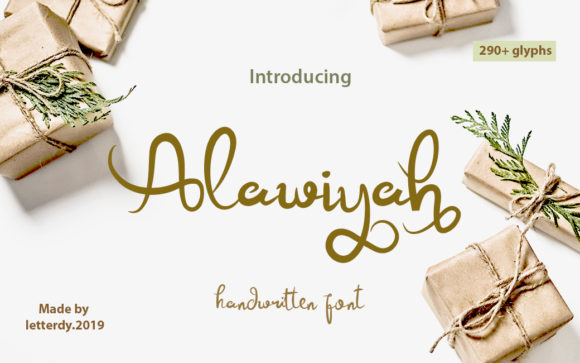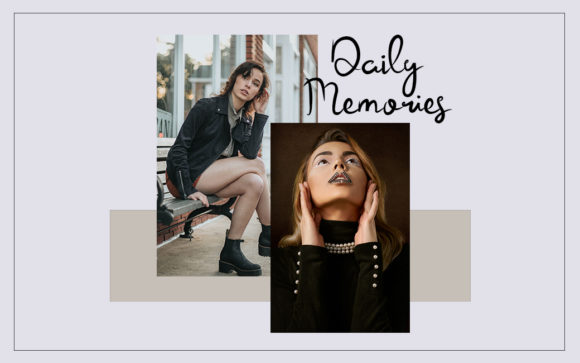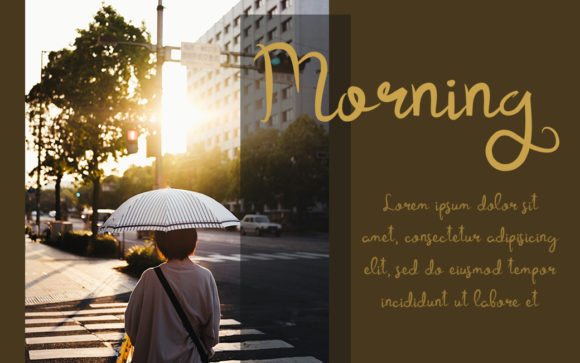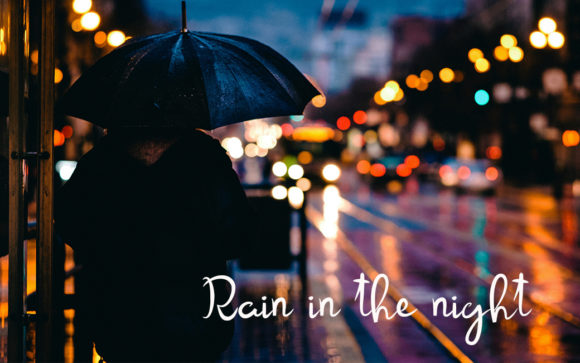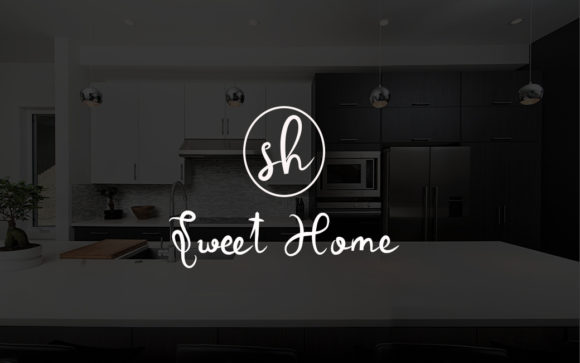
HomeScript FontsAlawiyah Font Script Fonts Alawiyah Font FacebookXPinterestWhatsApp Alawiyah Font Poster 2 Alawiyah Font Poster 3 Alawiyah Font Poster 4 Alawiyah Font Poster 5 About Alawiyah Font Alawiyah is a stunning and organic script with beautiful swashes. Get inspired by this one-of-a-kind font. DOWNLOAD ON CREATIVE FABRICAThis font is sold and delivered by Creative Fabrica. Font Canyon may earn a commission if you buy through this link. People also explored Midnight Font Storylona Font Thenicle Outline Bold Font Glade Font Romantica Font Twentieth Century Xanthousy Font Beauty Valentina Font Mollisurda Font 390 0 TagsAlawiyah Font Previous articleScriptys FontNext articleSeychelle Font LEAVE A REPLY Cancel reply Comment: Please enter your comment! Name:* Please enter your name here Email:* You have entered an incorrect email address! Please enter your email address here Website: Save my name, email, and website in this browser for the next time I comment. Personal Use Free Good Times Personal Use Free Read more about this font Gagalin Personal Use Free Read more about this font Black Personal Use Free Read more about this font Senza Bella Personal Use Free Read more about this font BLOG Free vs Paid Fonts: Why Investing in Premium Fonts Is Worth It Free vs Paid Fonts: Why Premium Fonts Are Worth It in 2025 The debate of free vs paid fonts continues in the design world. While... Fonts That Capture the Spirit of New York City To increase your work productivity, choose the most readable fonts. How to Install and Use Fonts on Windows, macOS, and Web Projects